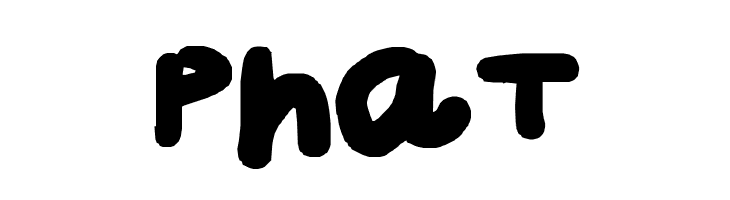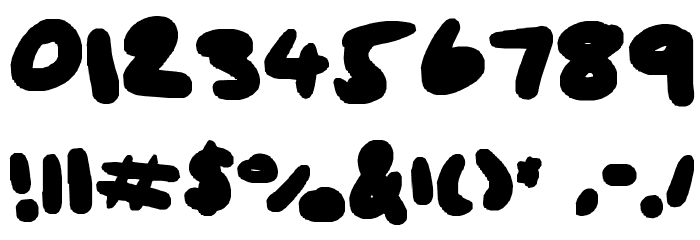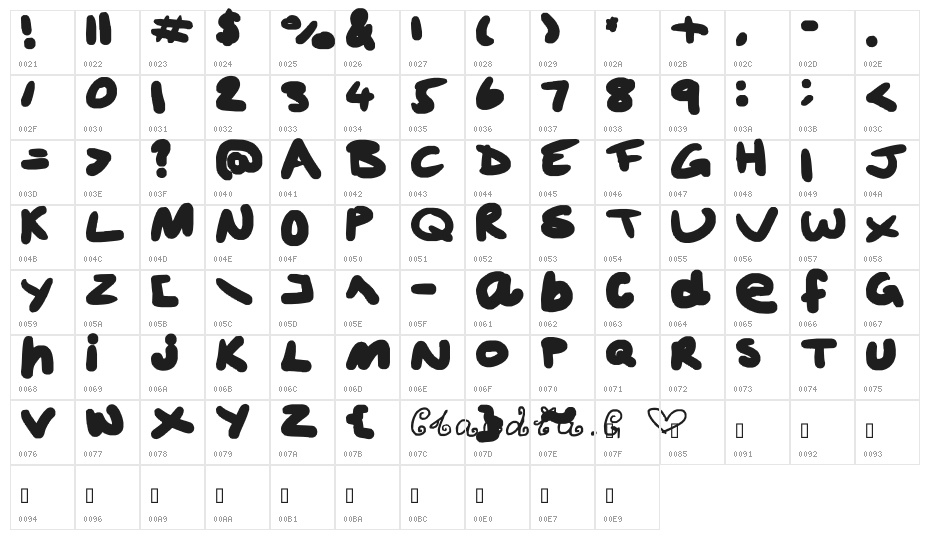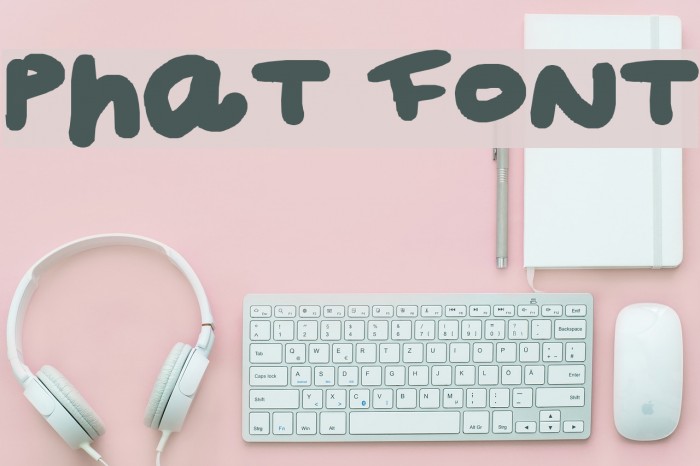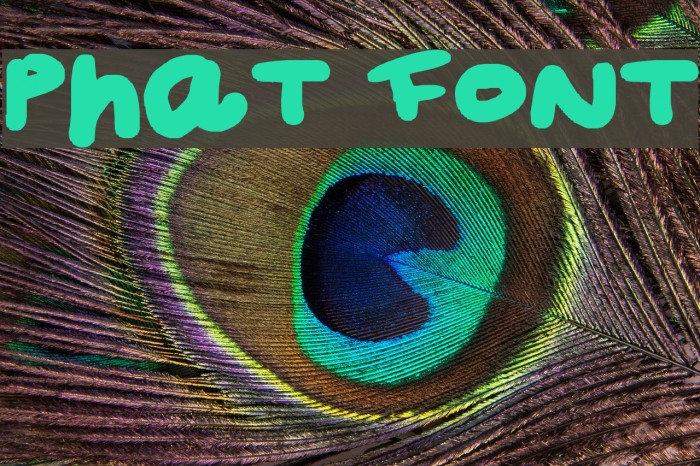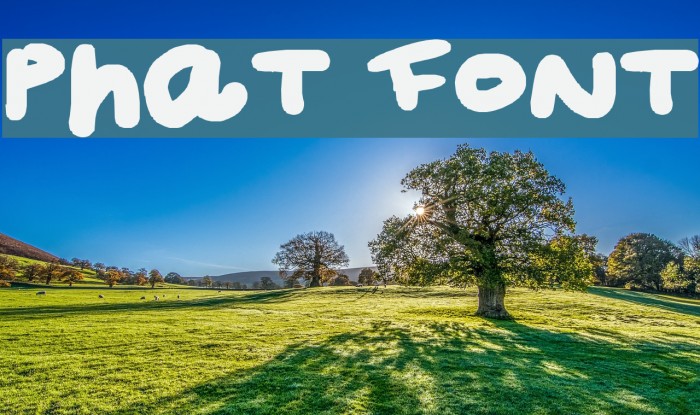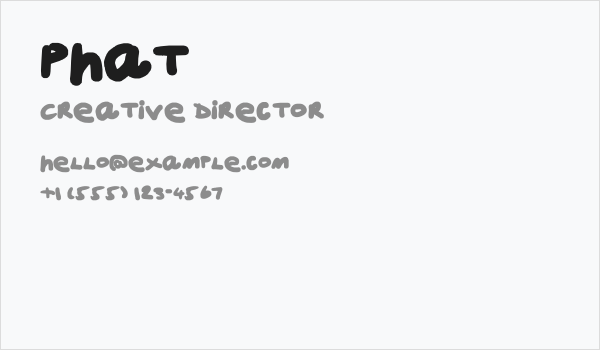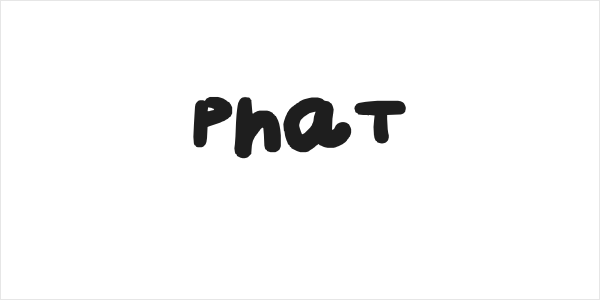
Phat Font
Phat Description
This font features a bold, playful style with a hand-drawn appearance. The characters are thick and rounded, giving a sense of fun and informality. The uppercase and lowercase letters maintain a consistent weight, contributing to a cohesive look. The numbers and special characters follow the same design, ensuring uniformity across all glyphs. The font's organic, slightly irregular shapes add a touch of whimsy, making it ideal for projects that require a casual and approachable feel. Its boldness ensures high readability, even at smaller sizes.
| Proposed Projects | Ideal for children's books, comic strips, playful branding, and casual invitations. |